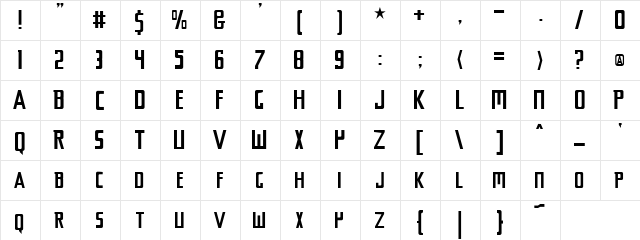
Chanakya Regular
Design Context for Chanakya Typeface
Chanakya is a composed and adaptable typeface that performs quietly and consistently across a wide range of design contexts.